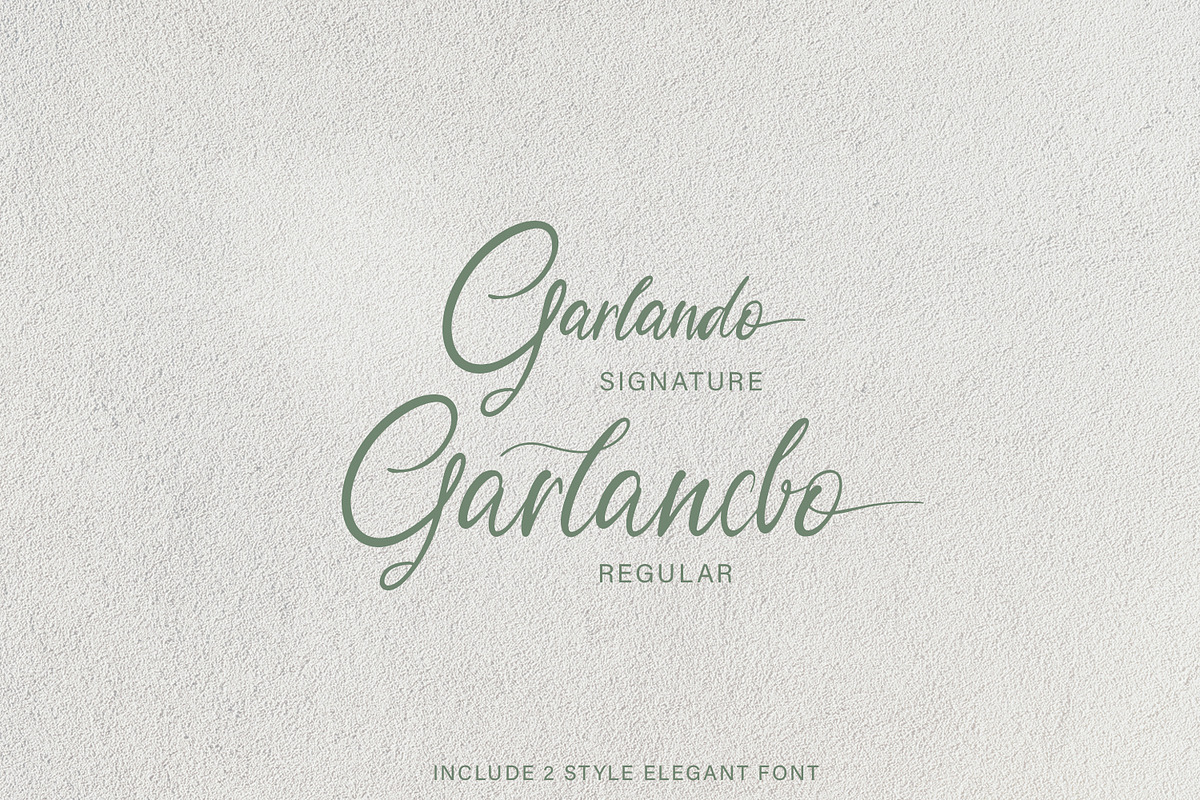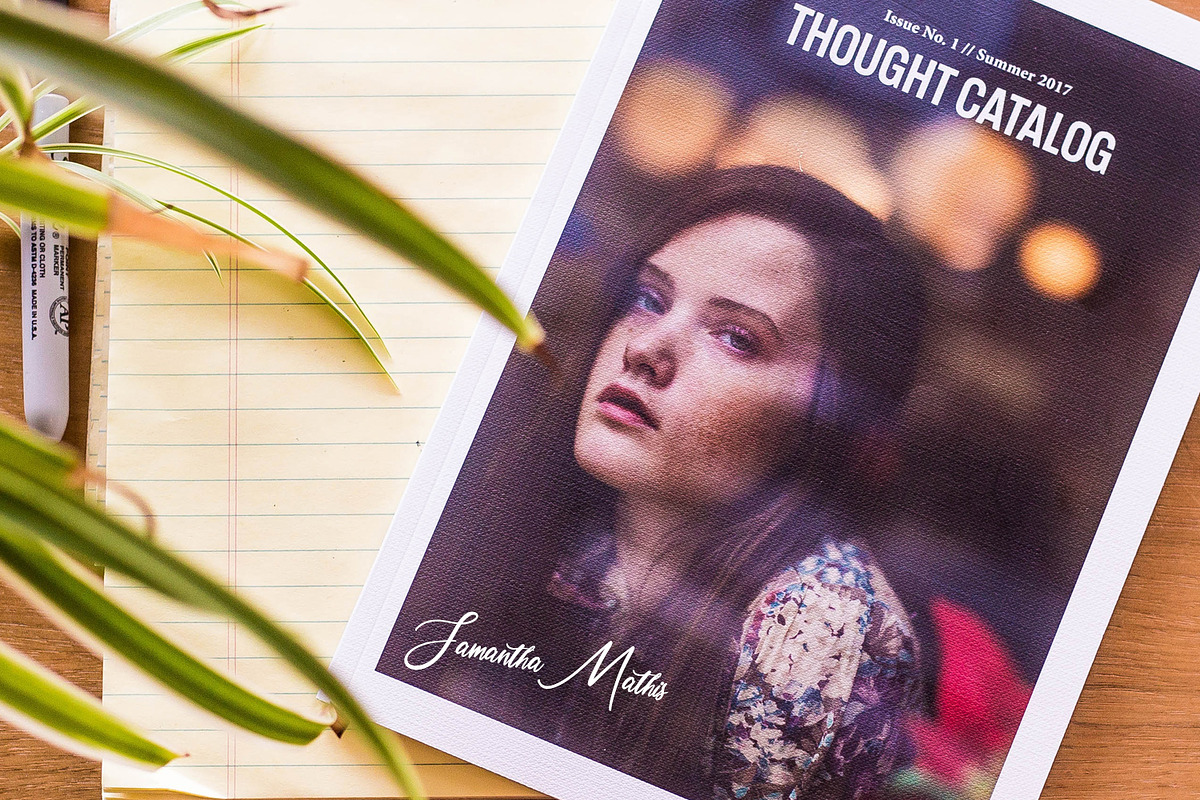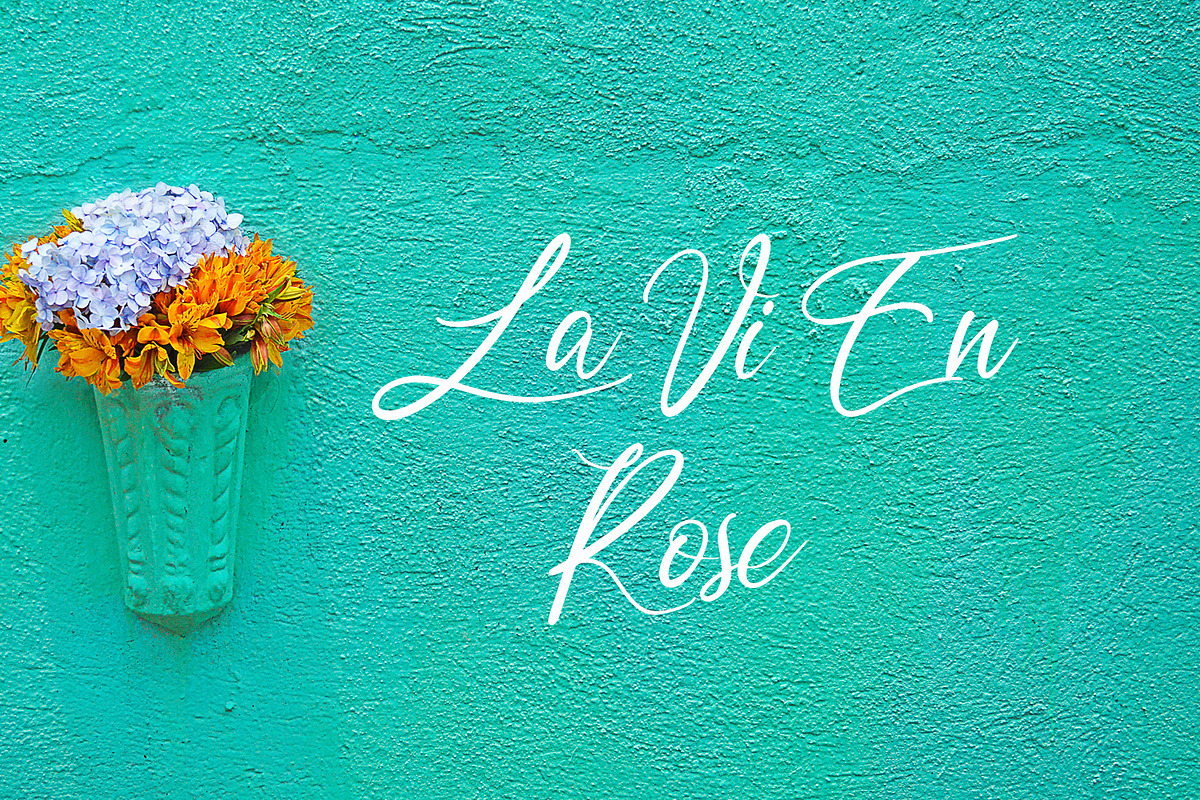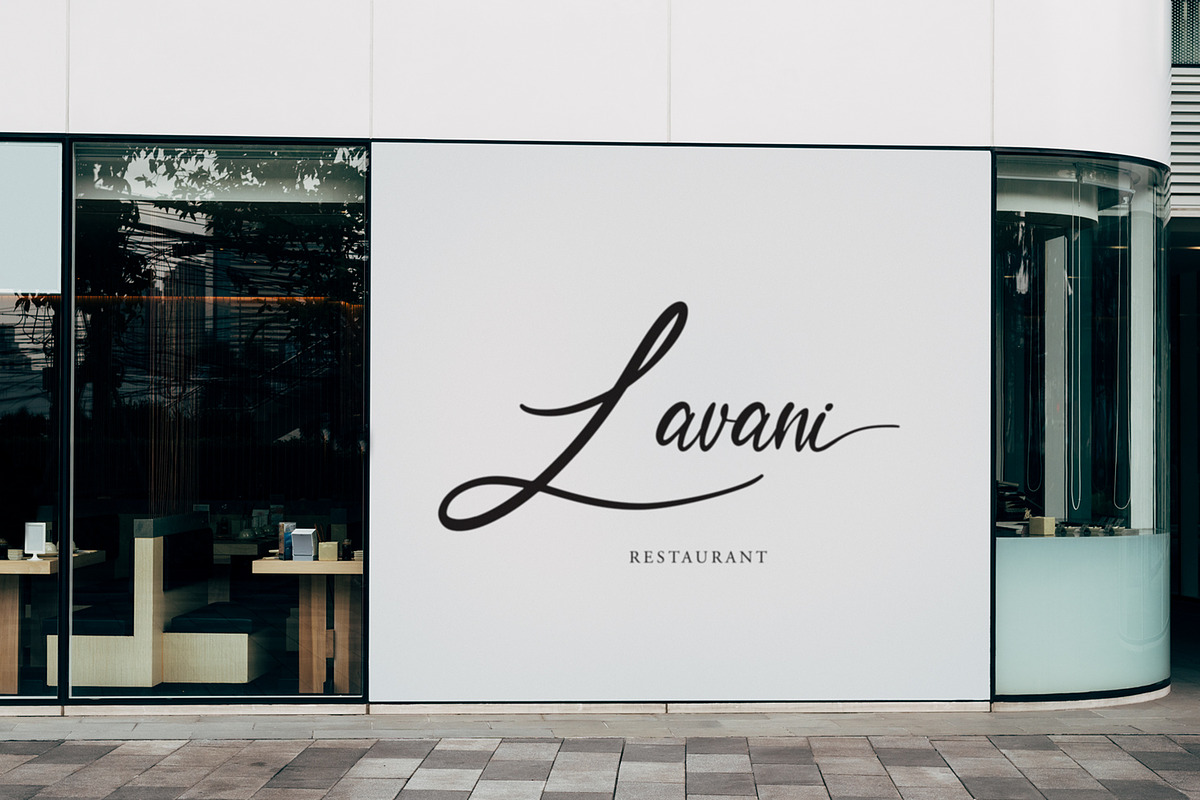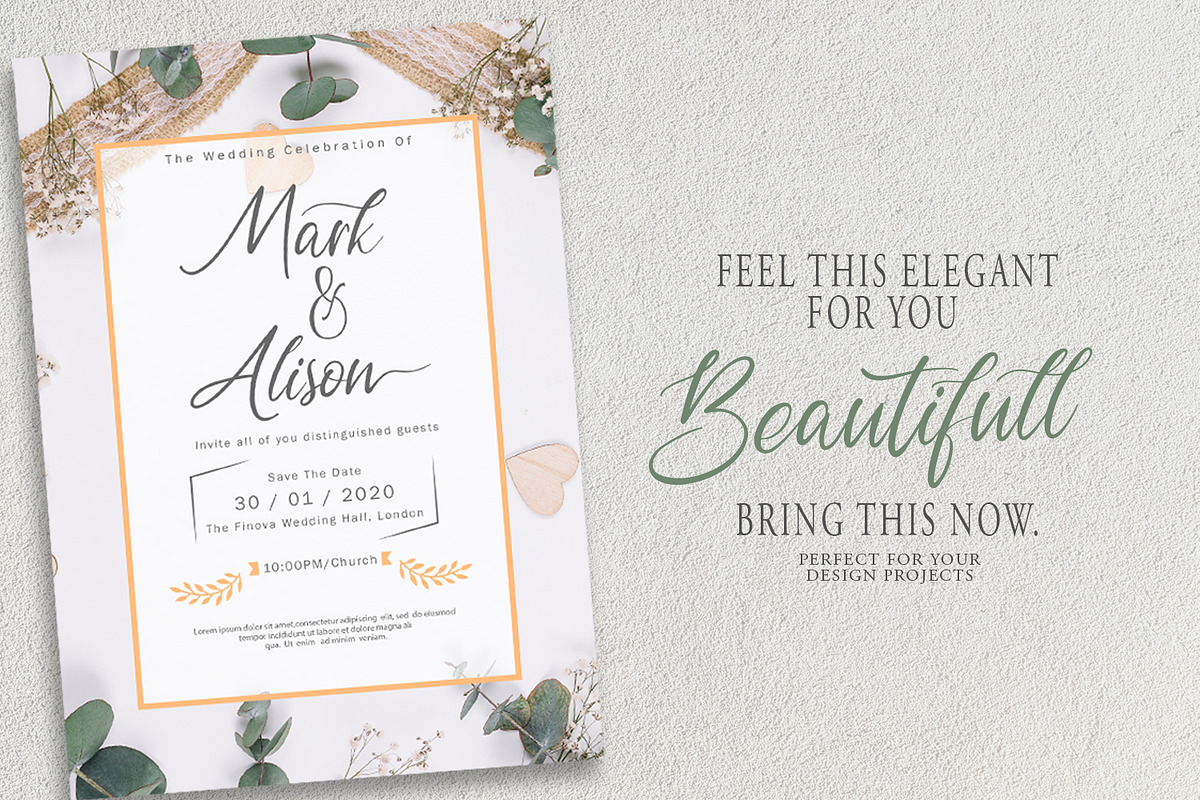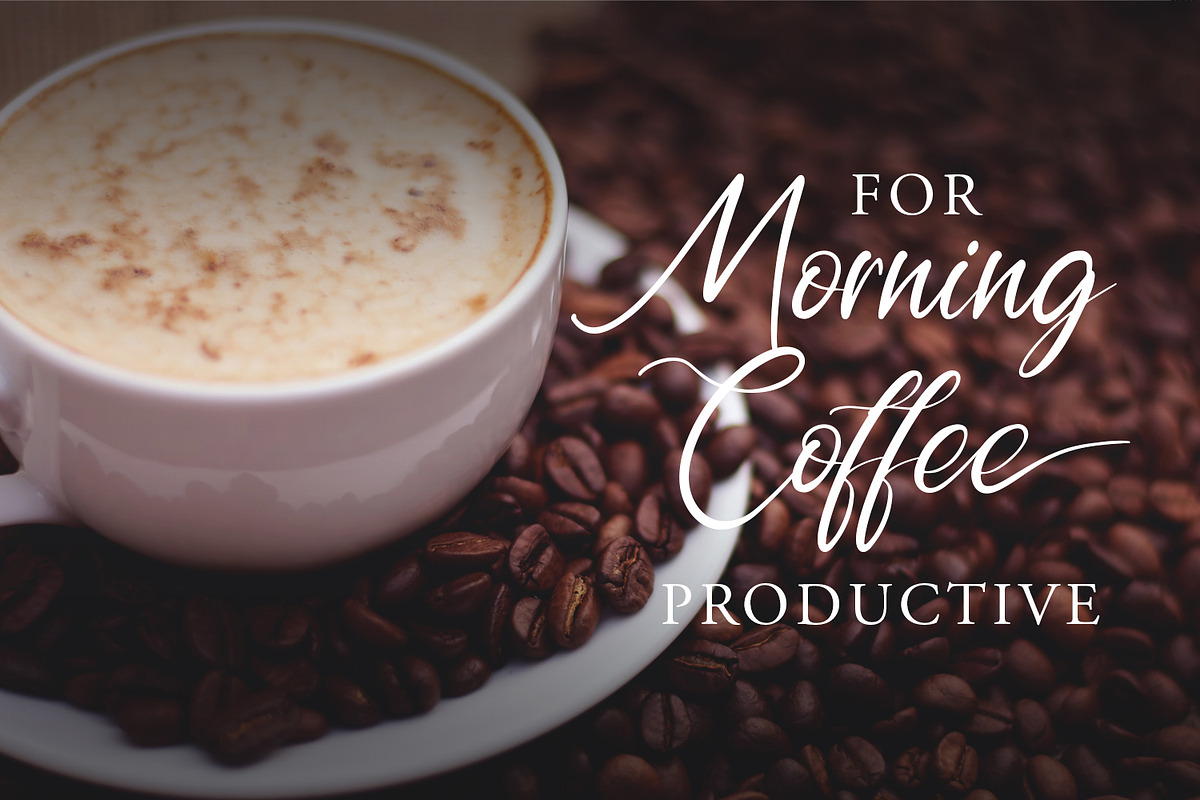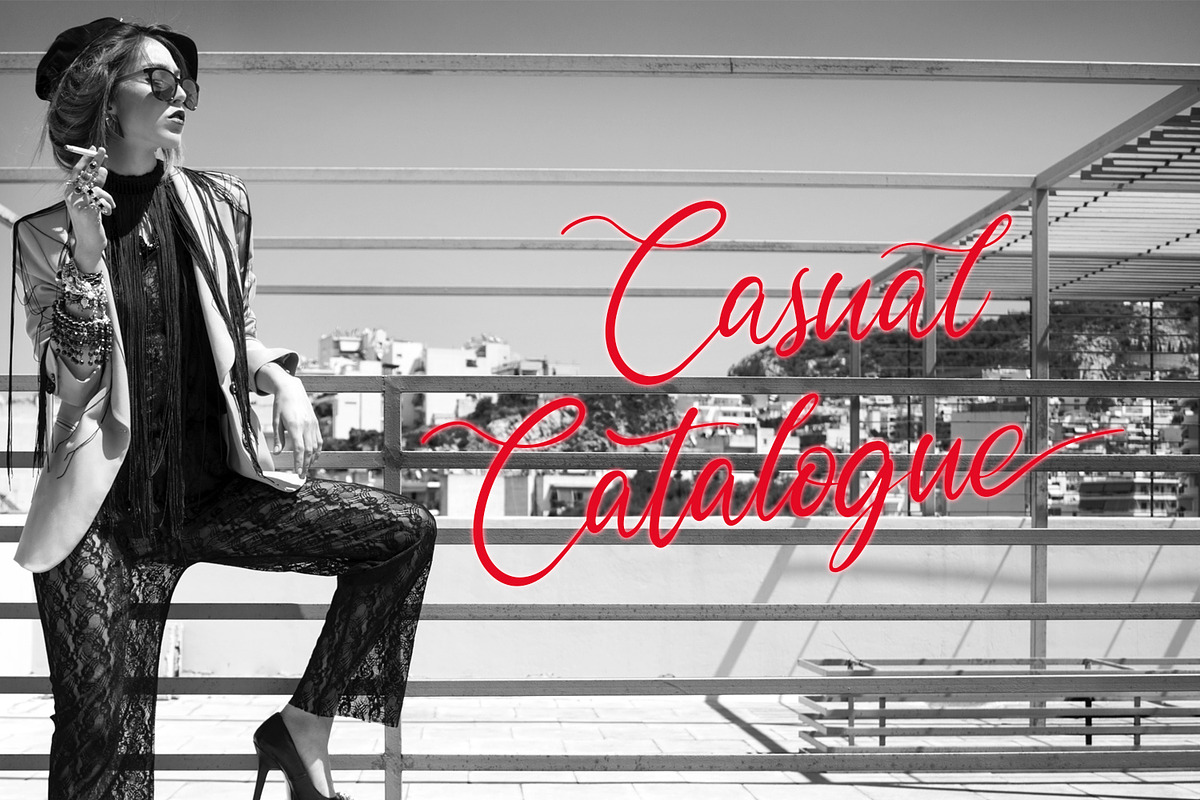
Garlando - Calligraphy Font
Introducing my new font Garlando Font, wrapped elegantly and has distinctive characteristics making this font beautiful and this font has 2 different styles so you get a different experience in both
Garlando font perfect for branding projects, logos, wedding designs, media posts, advertisements, product packaging, product designs, labels, photography, watermarks, invitations, stationery, and any project who need handwritten dishes.
- Garlando Regular
- Garlando Signature Signature